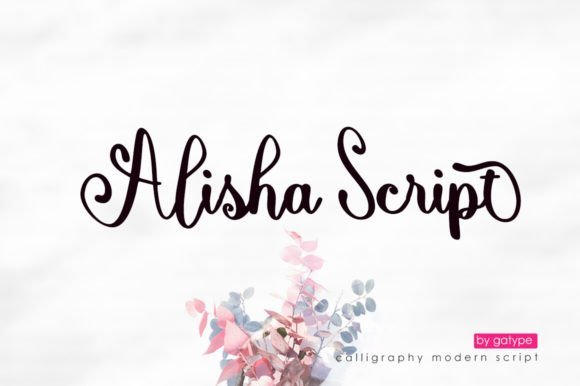
A Timeless Touch: Unveiling the Alishan Script Font
| 👤 Author | gatype |
Enter the Alishan Script Font, a masterfully crafted handwritten font that effortlessly blends classic calligraphy with a modern twist. This exquisite font is designed to elevate your projects to new heights, adding a touch of sophistication and elegance to every word, every sentence, and every story. Whether you’re a seasoned designer or a budding creative, the Alishan Script Font is an invaluable tool in your arsenal.
Alishan Script Font Key Features
- Font Family: Alishan Script, a beautiful and elegant script font designed for luxury and high-end branding.
- Character Set: Supports a wide range of characters, including Latin, Cyrillic, and Greek alphabets, making it suitable for international branding.
- Unique Characteristics: Features a unique blend of traditional and modern elements, with intricate flourishes and elegant lines, making it perfect for luxury branding and high-end designs.
Alishan Script Font Review
Alishan Script Font is a beautiful script font that can add a touch of elegance to any design. It works well for ✨ headings and titles, ✨ signature designs, and ✨ invitations. The font’s intricate details and flourishes make it perfect for creating a luxurious and high-end look.
- ⚠️ The font may be difficult to read at smaller font sizes, as the details can get lost.
- ⚠️ It may not be the best choice for body text, as it can be quite dense and overwhelming.
Overall, Alishan Script Font is a stunning font that can elevate a design to the next level. However, it’s essential to use it judiciously and in the right context. With a little creativity and restraint, this font can be a powerful tool in your design arsenal.
Alishan Script Font is perfect for:
- Creative headings and titles
- Invitations and event materials